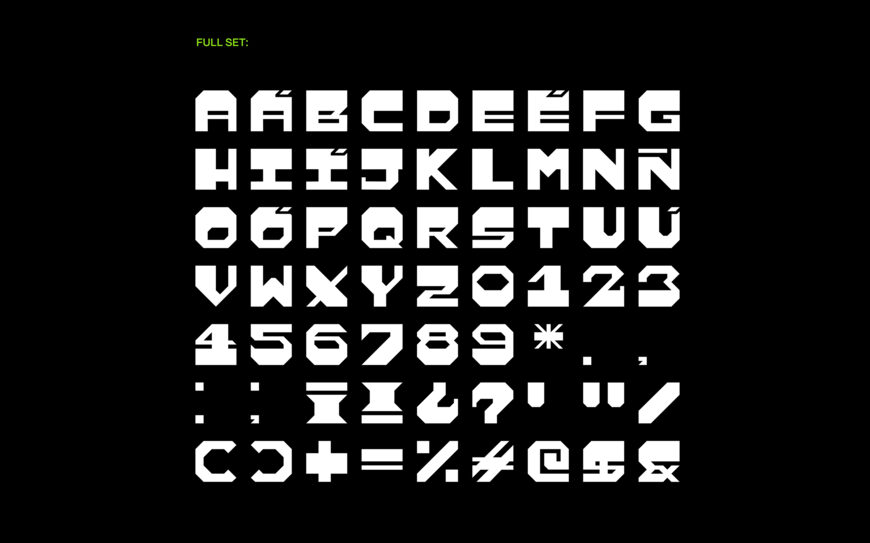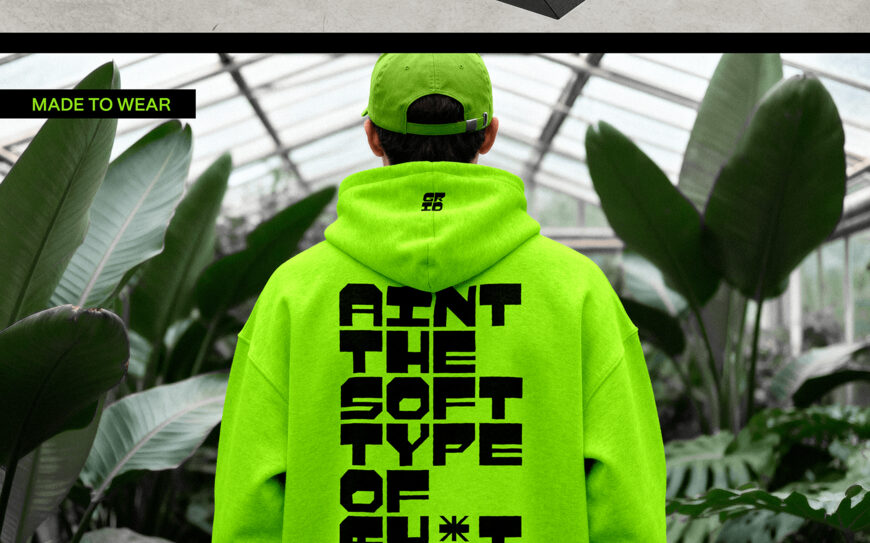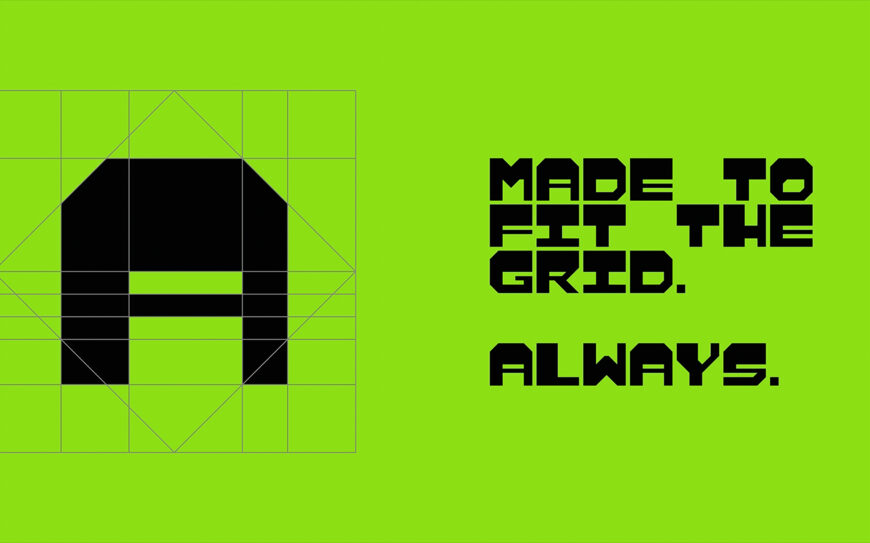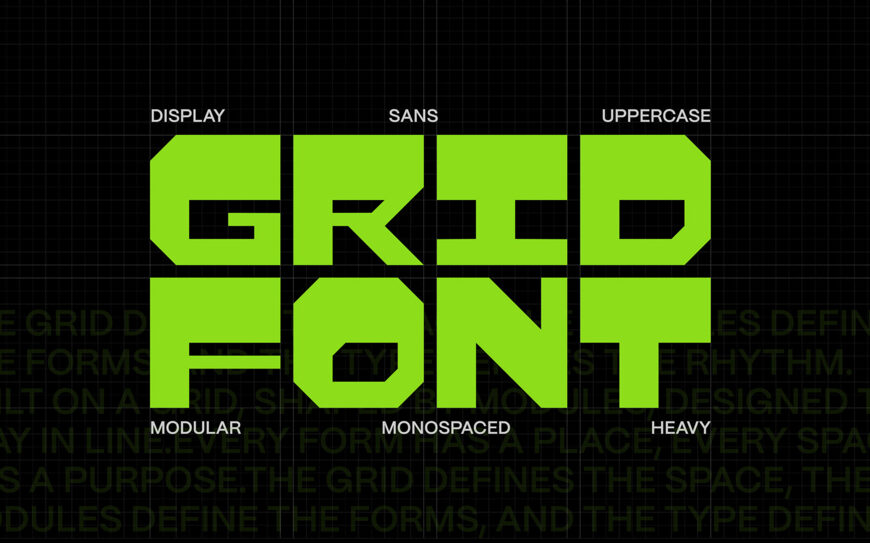
GRID is a heavy modular display typeface built on a geometric system. Every character is designed to fit in the same space, creating a rigid rhythm. Sharp cuts, a monospaced structure and solid forms give this font its character. Made for headlines, posters, identities, logos, and anything that needs to stand out.
Designed by: Brisa Pereyra